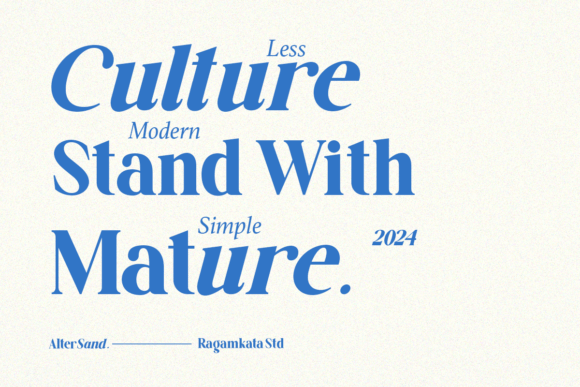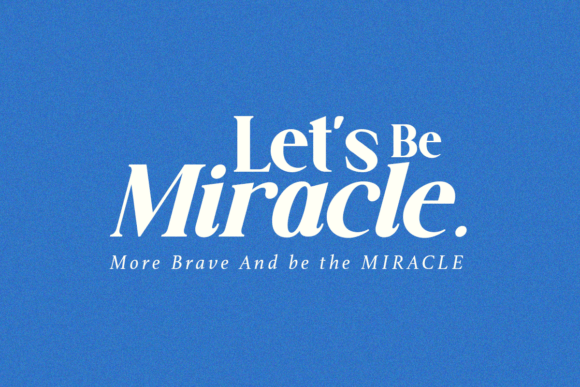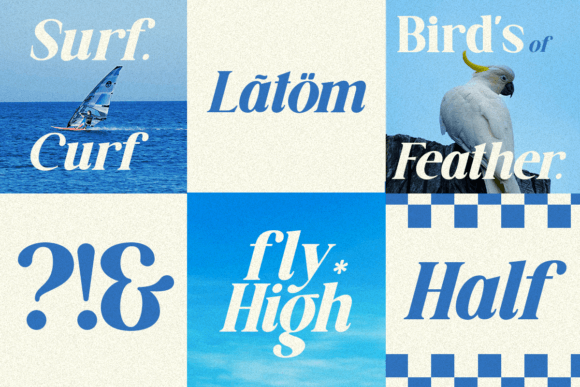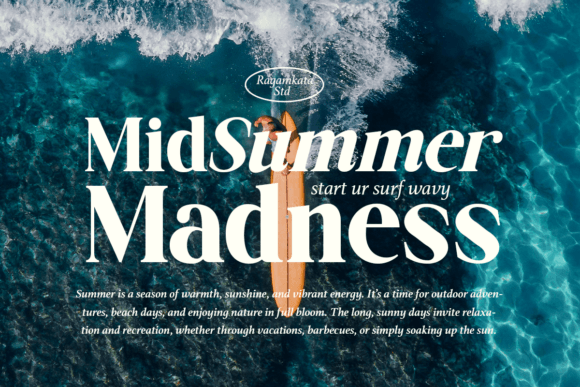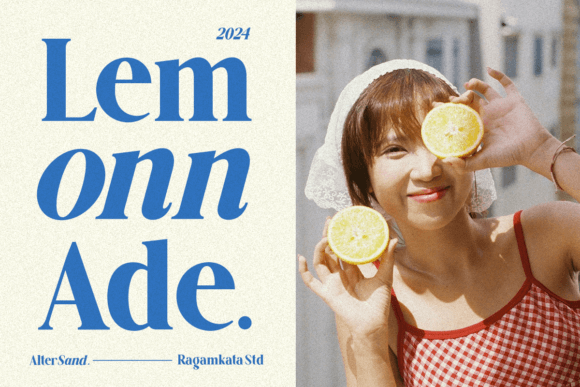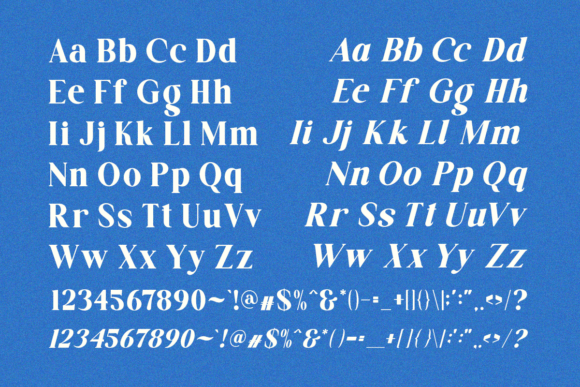
Introduction to Alter Sand Font
Alter Sand is a modern and versatile serif font that exudes elegance and visual clarity.
Featuring both regular and italic styles, this font is ideal for a wide range of design projects, such as branding, editorial layouts, posters, and product packaging .
Key Features of Alter Sand Font
Why Choose Alter Sand Font?
Alter Sand Font offers exceptional quality and versatility, making it a valuable addition to your design toolkit. Whether you’re creating for personal projects or commercial use, Alter Sand Font delivers professional results.